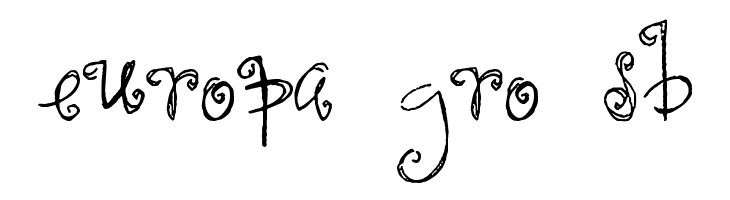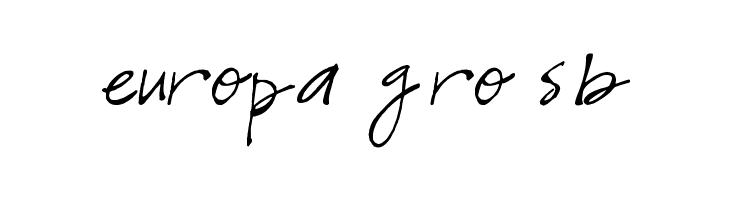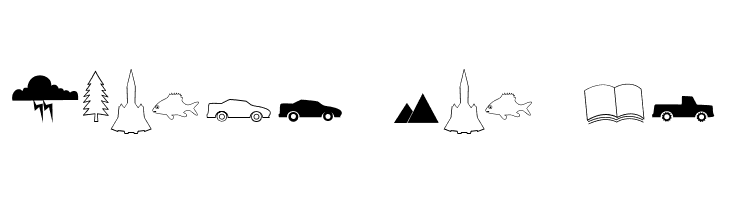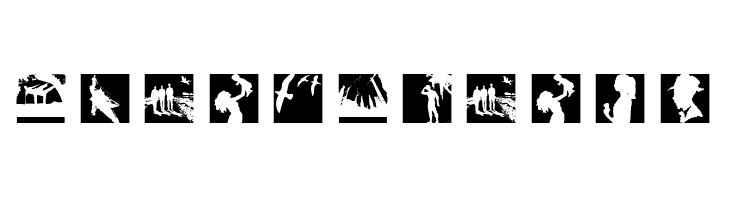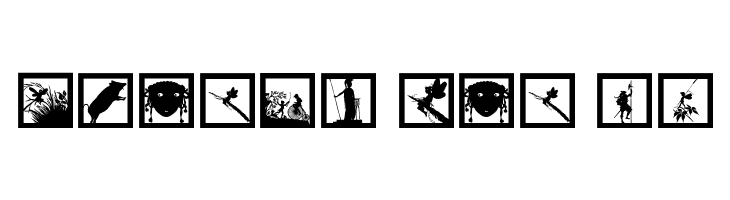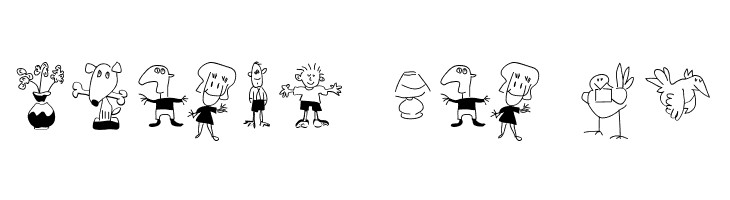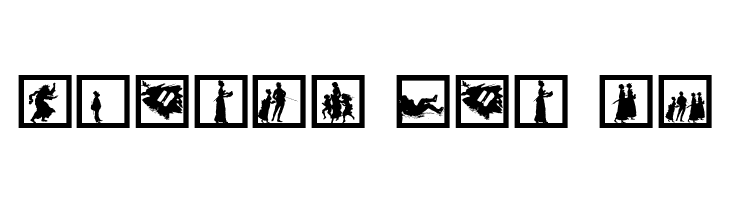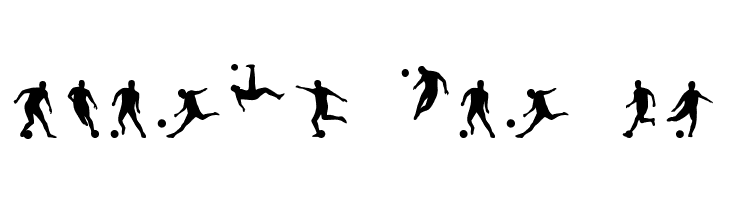
• Snowshoe
A dynamic handwritten font with fluid strokes and a casual elegance.
• Soccer II
Silhouette dingbat font with soccer player and ball icons.
• SomeKidsThings
Hand-drawn cartoon dingbat font with playful, childlike illustrations.
• SomeNewSilhouettes
Silhouette-based decorative font with pictorial glyphs in square frames.
• SomeSilhouBatsOne
A whimsical collection of bold silhouette designs in square frames.
• SomeSilhouettesPlus
Silhouette illustration font with vintage, storybook scenes in each character.
• SomeSilhouettesTwo
A decorative font featuring unique silhouette designs for each character.
• SomeSymbols
A playful pictogram dingbat set with various themed icons.
• soot break
• Southern Accent Belch
A whimsical, curly font with a playful, handwritten style.